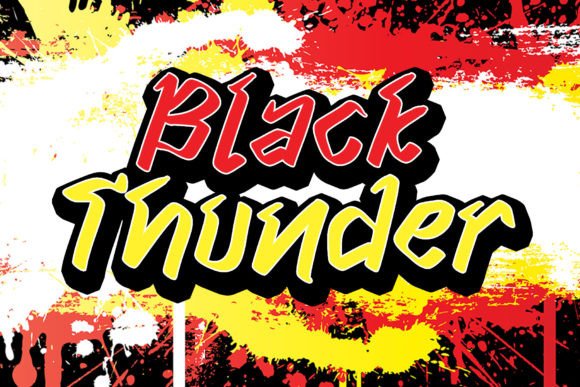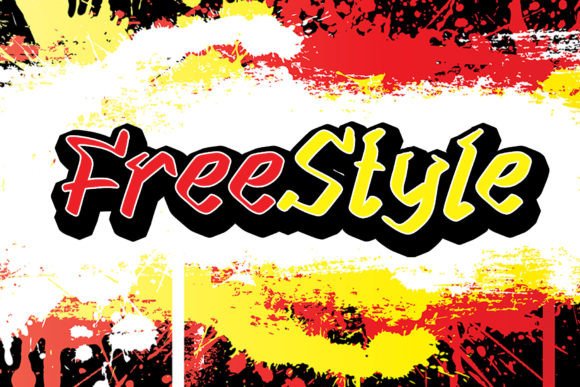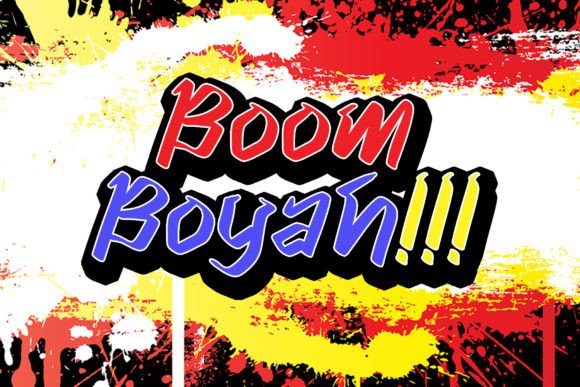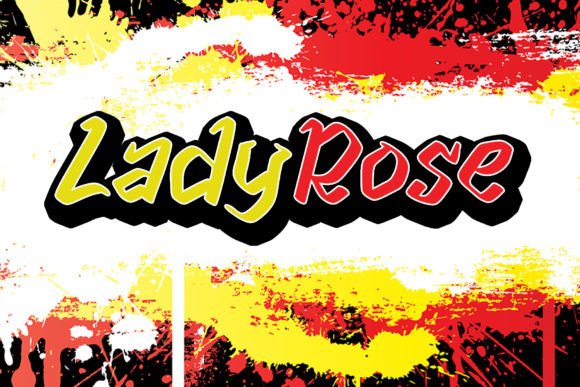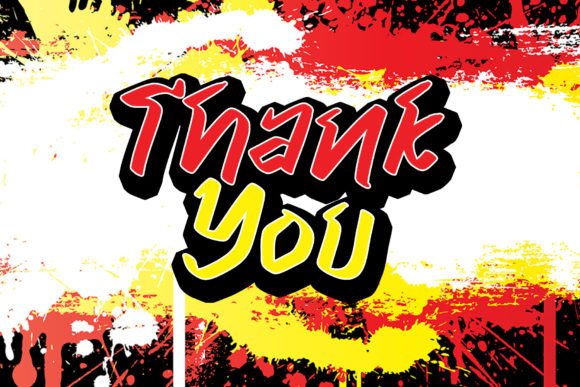
The Ultimate Gemfity Font Guide: Elevate Your Designs with this Fun and Quirky Graffiti-Style Font
I’ll never forget the time I was working on a wedding invitation project, and my client asked for a font that was “fun, playful, and Instagram-worthy.” I scoured the internet, tried out dozens of fonts, but nothing seemed quite right. That was until I stumbled upon the Gemfity font. It was love at first sight! 💕 This fun and quirky graffiti-style font has been a game-changer for my designs, and I’m excited to share its awesomeness with you.
An Honest Review of Gemfity Font
What I Love About Gemfity Font
- ✨ Unique and eye-catching graffiti-style design that’s perfect for making a statement
- ✅ Highly versatile and can be used for a wide range of design projects, from branding to wedding designs
- 🎉 Fun and playful vibe that’s sure to add a touch of personality to your designs
- 💻 Excellent for use in digital and print designs, including social media graphics, posters, and more
While Gemfity font is an amazing addition to any design project, there are a few things to keep in mind:
- 🤔 Some letters may not be suitable for body text due to their bold and stylized nature
- ⚠️ May not work well with very small font sizes or in situations where a more traditional font is required
The Backstory of Gemfity Font
Gemfity font was created by a talented designer who was inspired by the vibrant street art of graffiti. With a passion for typography and a love of bold, stylized designs, the designer set out to create a font that would capture the essence of graffiti culture. The result is a font that’s fun, playful, and perfect for making a statement.
Q: What type of designs is Gemfity font best suited for?
A: Gemfity font is highly versatile and can be used for a wide range of design projects, from branding to wedding designs, invitations, signatures, logotypes, wall art illustration, apparel, labels, and more!
Q: Is Gemfity font easy to read?
A: Gemfity font is a bold and stylized font, and while it’s perfect for making a statement, it may not be the best choice for body text or situations where readability is a top priority.